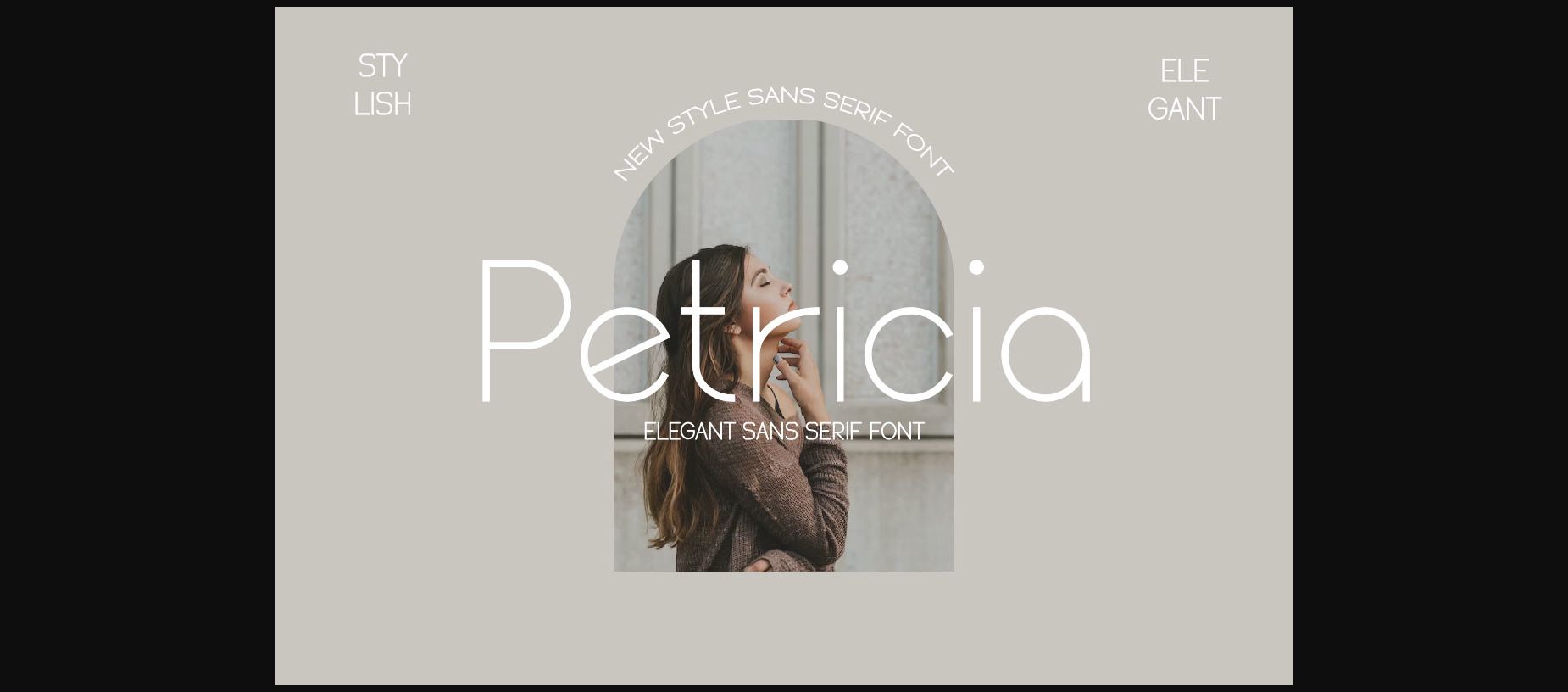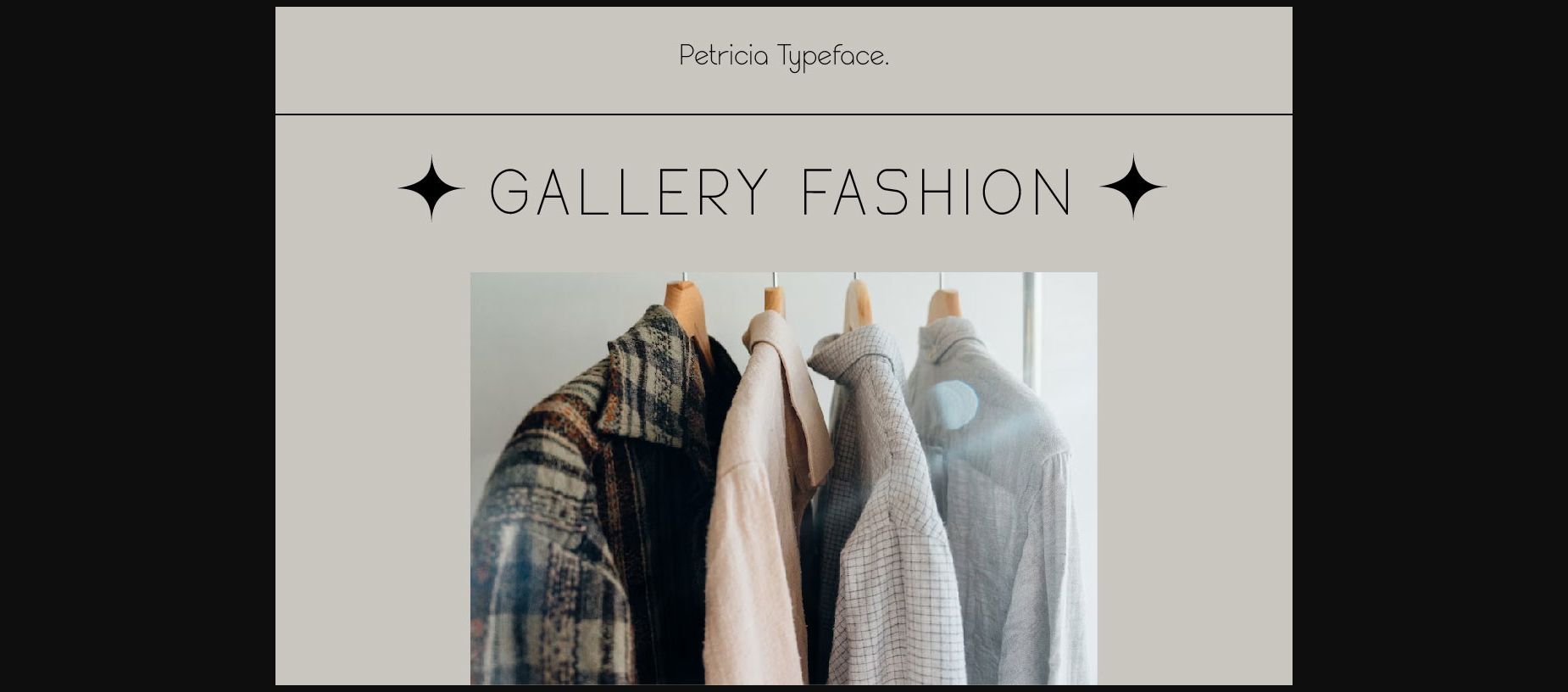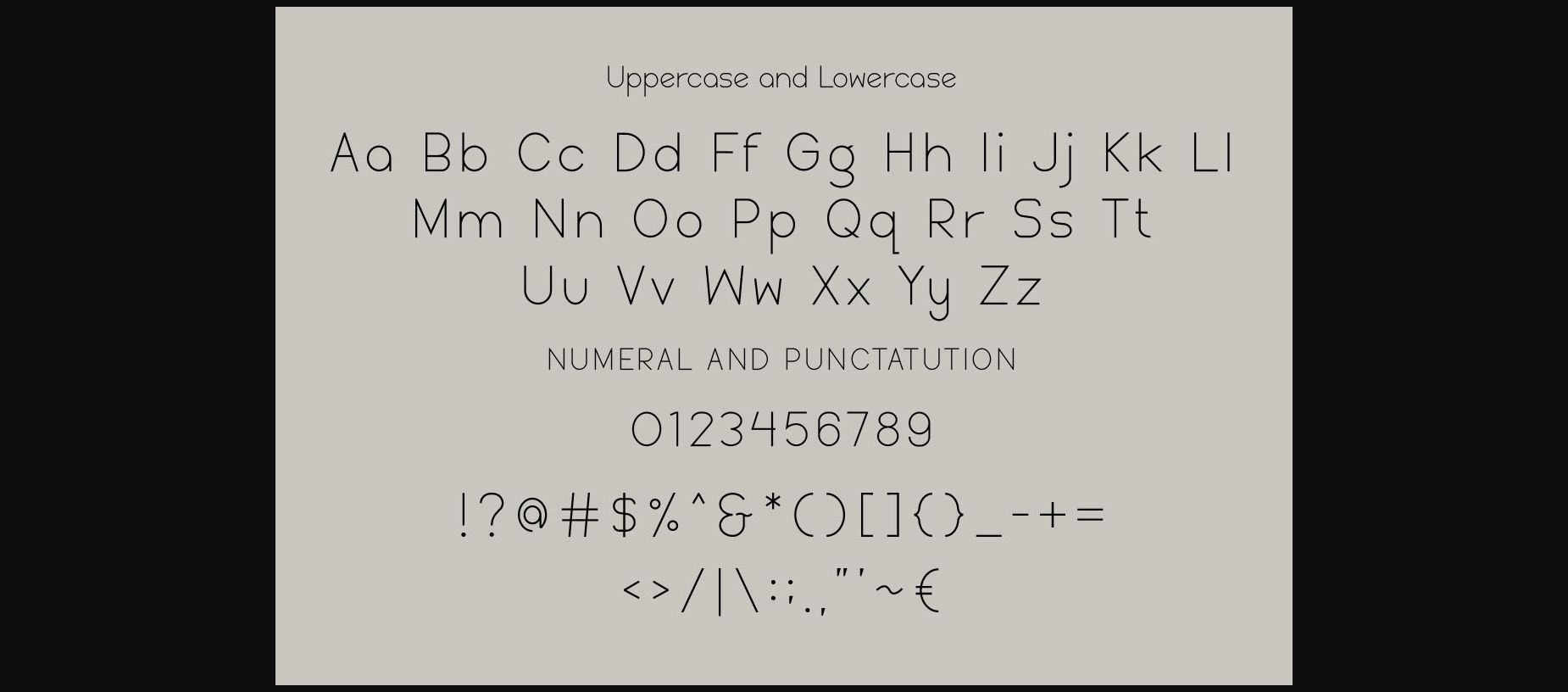
About Petricia Font
Petricia – Elegant Sans Serif Font.
A font with a modern style based on a minimalist monoline shape that is touched in a modern and elegant style. This font is perfect for a variety of creative needs such as printing, books, titles, headlines, photography, embellishments, branding, logos, and more.